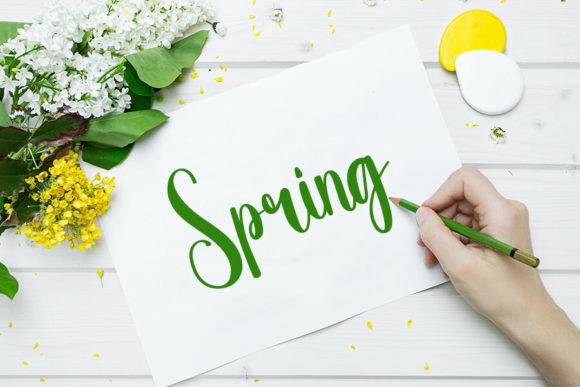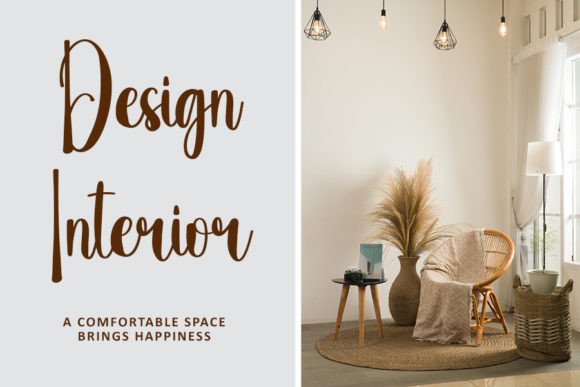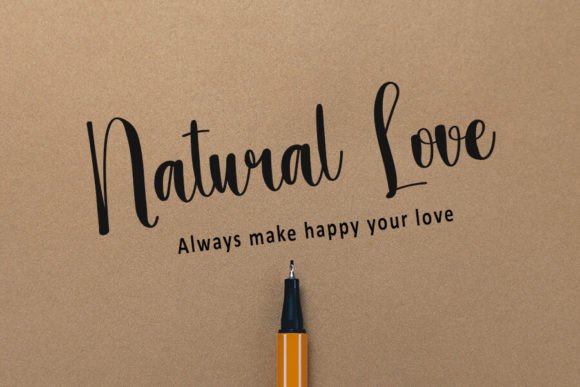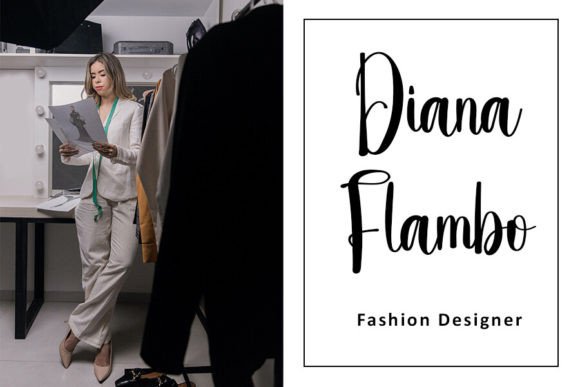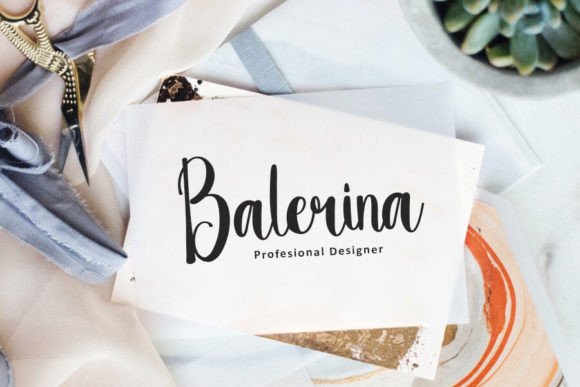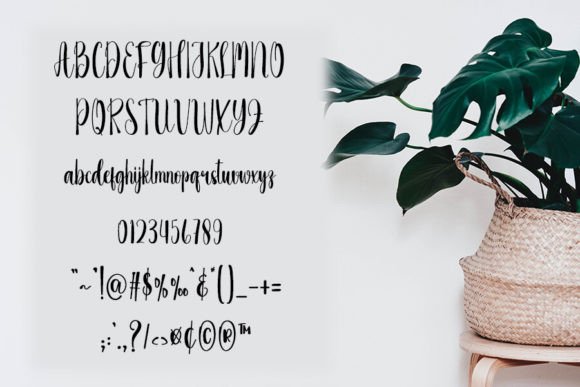
Admirer Nature Font: A Festive and Merry Typeface for the Holiday Season
The holiday season is upon us, and with it comes the desire to create festive and merry designs that capture the spirit of Christmas. One of the most effective ways to add a touch of enchantment to your designs is by using a special font that embodies the whimsy and nostalgia of the season. This is where Admirer Nature Font comes in – a decorative typeface that is perfect for greeting cards, gift tags, and holiday-themed projects.
What Makes Admirer Nature Font So Special?
Admirer Nature Font is a unique and festive typeface that is designed to bring a cheerful and nostalgic ambiance to your words. Its decorative elements and whimsical flair make it an ideal choice for designers and crafters looking to add a touch of magic to their holiday designs. Whether you’re creating greeting cards, gift tags, or holiday-themed projects, this font is sure to make your typography shine.
Admirer Nature Font is specifically designed for holiday-themed projects, making it the perfect choice for designers and crafters who want to create festive and merry designs. Its whimsical and decorative elements evoke the spirit of Christmas, adding a touch of enchantment to your words. With this font, you can create stunning holiday designs that will leave a lasting impression on your audience.
Key Features of Admirer Nature Font
- Festive and merry typeface perfect for the holiday season
- Decorative elements and whimsical flair add a touch of enchantment to your designs
- Perfect for greeting cards, gift tags, and holiday-themed projects
- Ideal for designers and crafters looking to create festive and merry designs
Tips for Using Admirer Nature Font
Here are a few tips for using Admirer Nature Font in your holiday designs:
- Use it for greeting cards and gift tags to add a personal touch
- Incorporate it into your holiday-themed projects, such as flyers and brochures
- Pair it with other festive fonts to create a unique and eye-catching design
Why Choose Admirer Nature Font?
There are many fonts to choose from, but Admirer Nature Font stands out from the rest. Its unique and festive design makes it the perfect choice for holiday-themed projects. Here are a few reasons why you should choose Admirer Nature Font:
- It’s specifically designed for the holiday season, making it a great choice for festive designs
- Its decorative elements and whimsical flair add a touch of enchantment to your designs
- It’s perfect for designers and crafters looking to create festive and merry designs